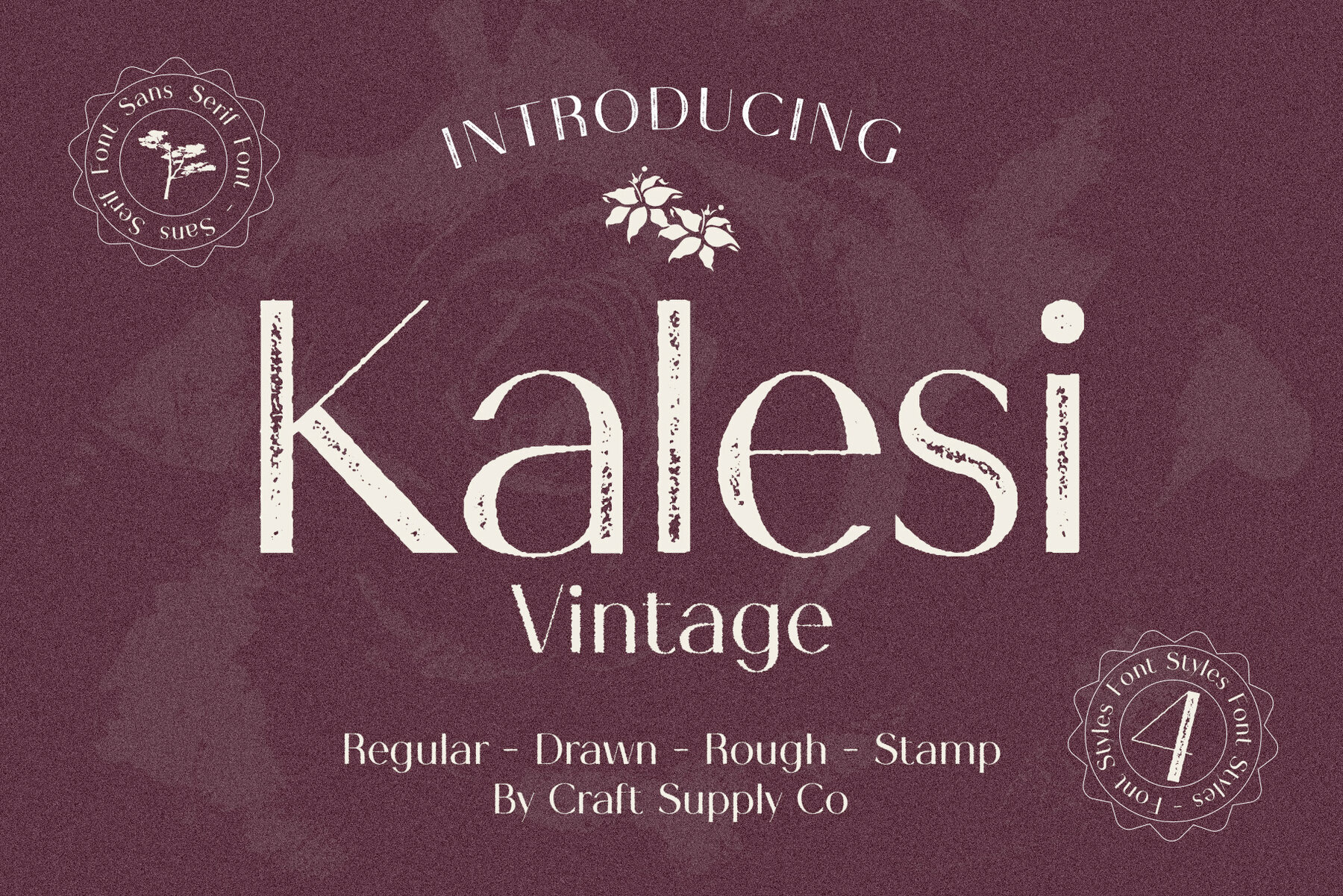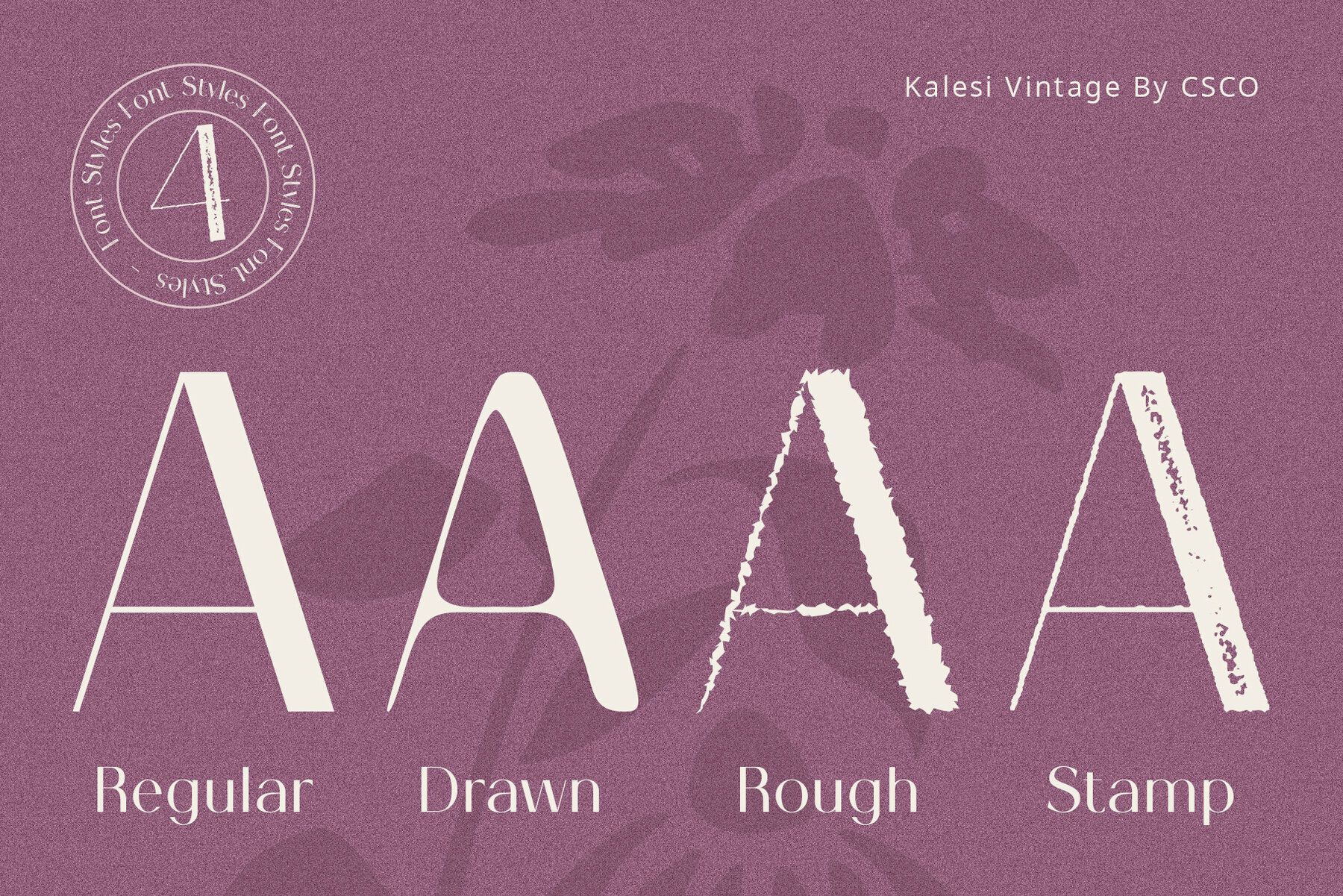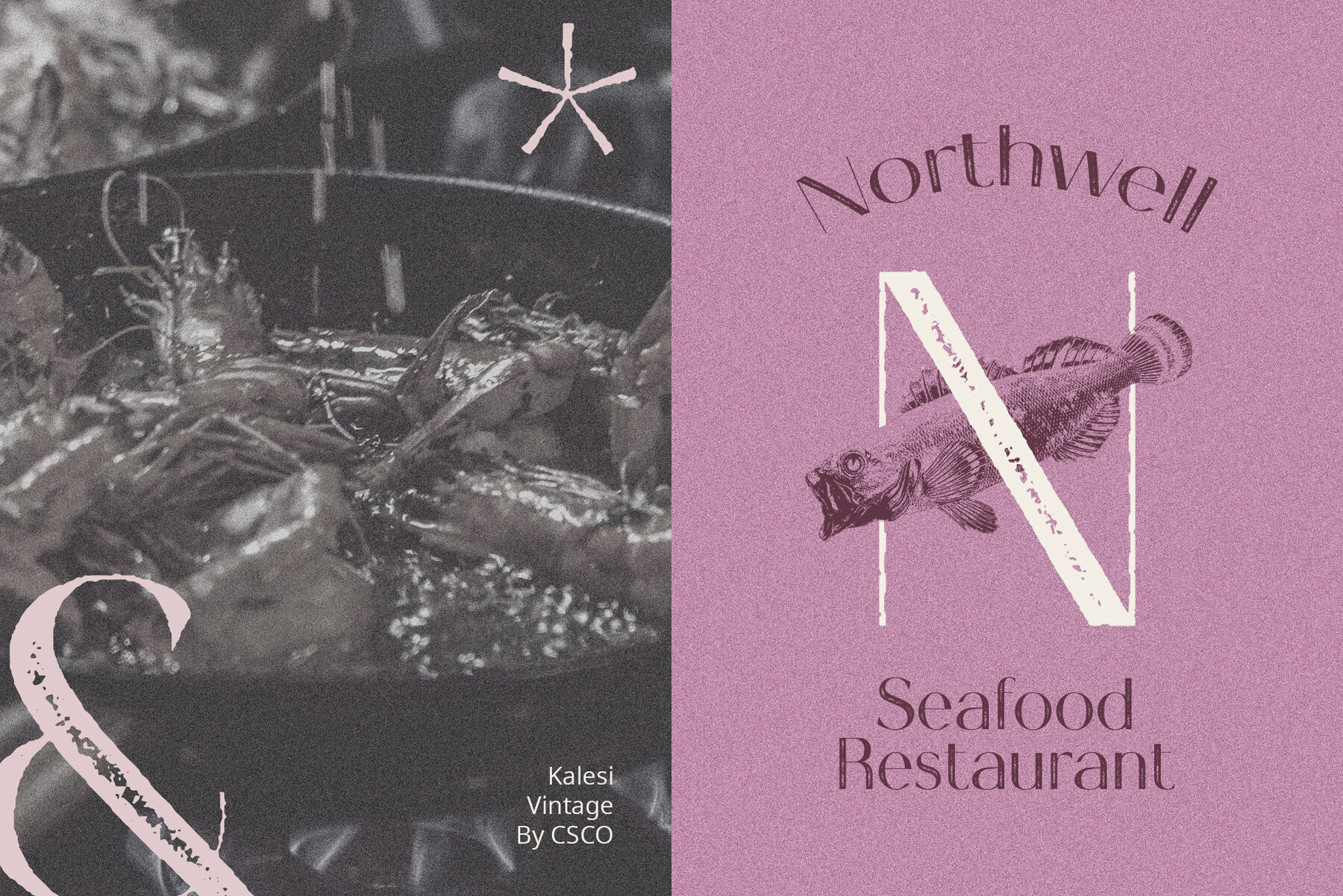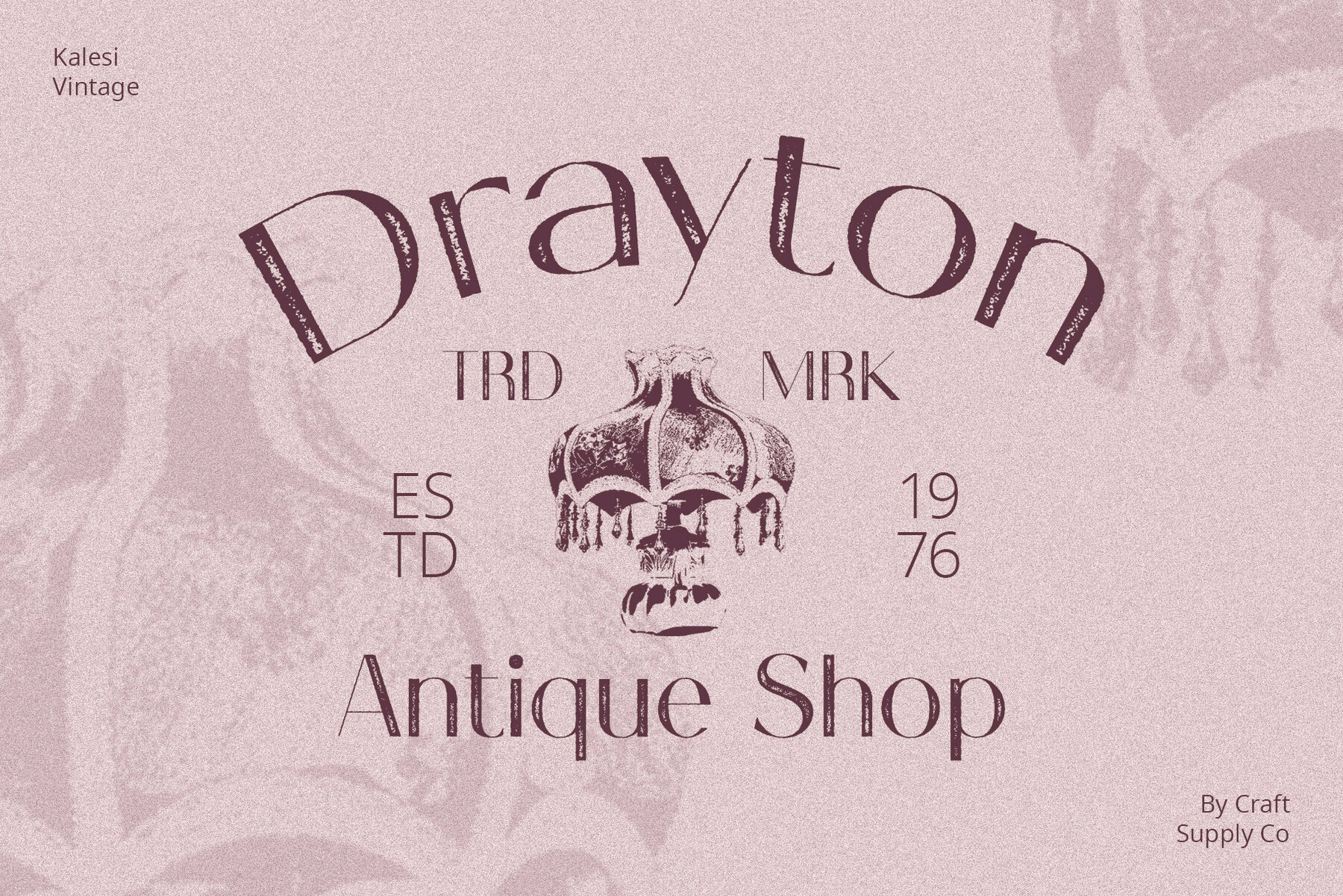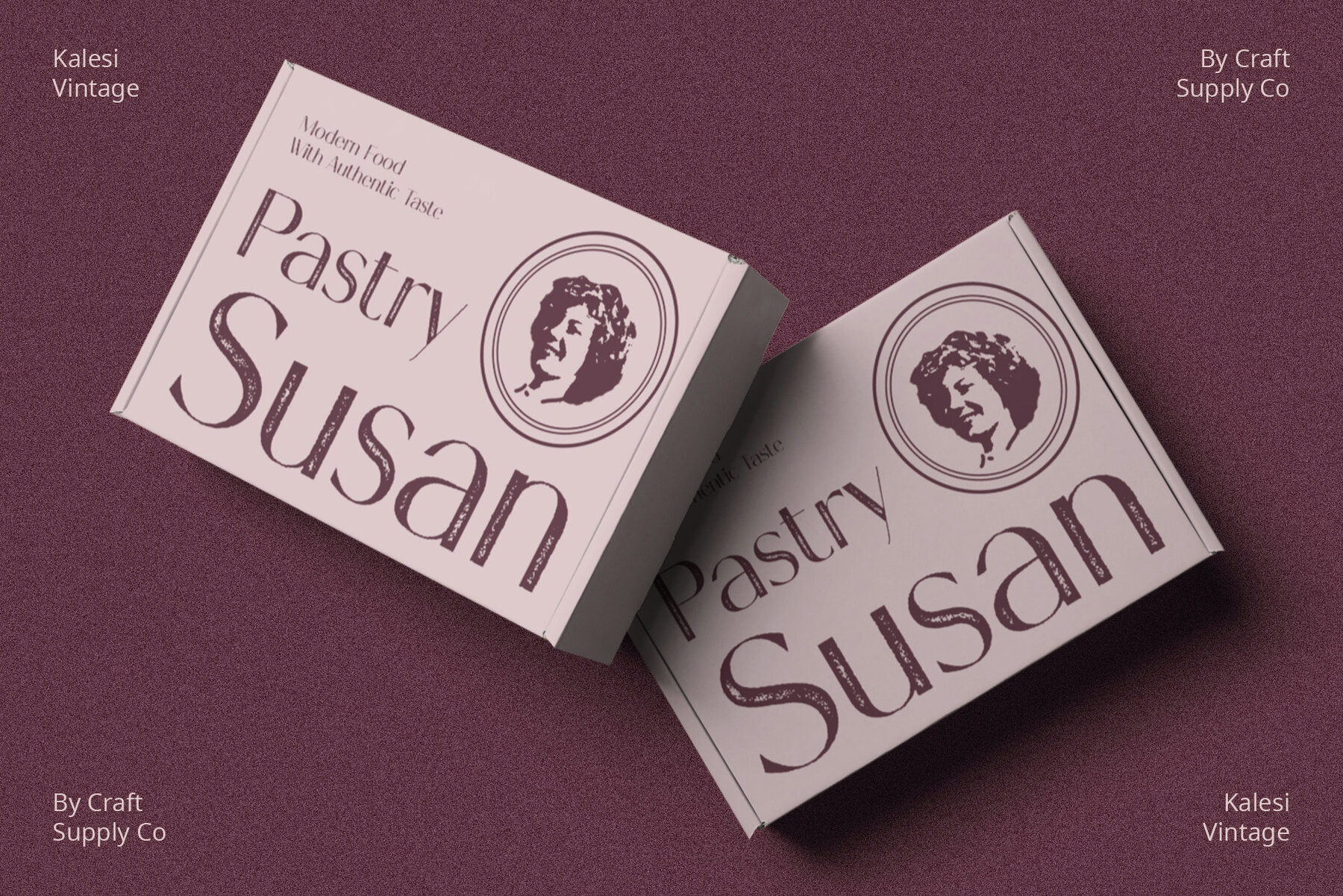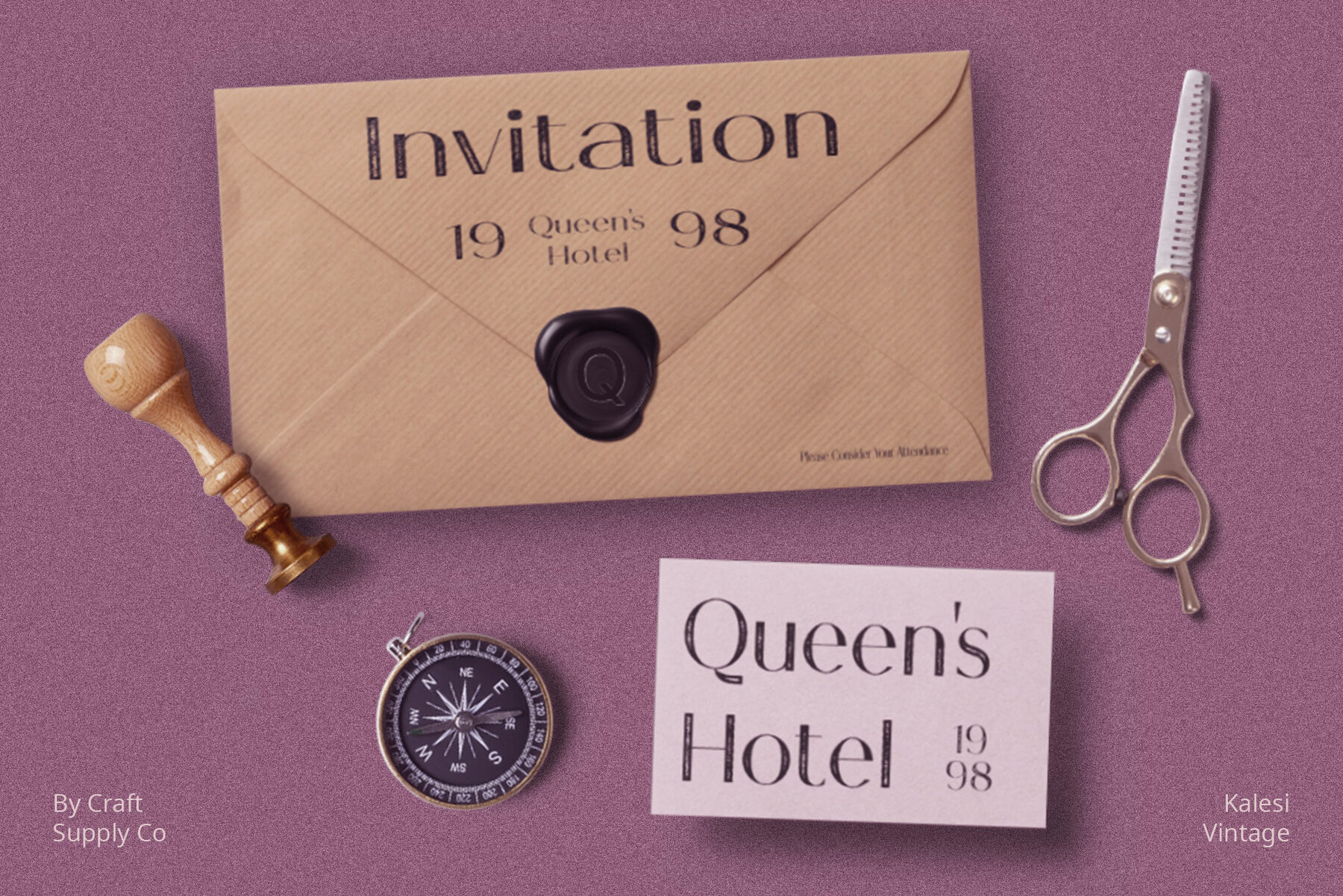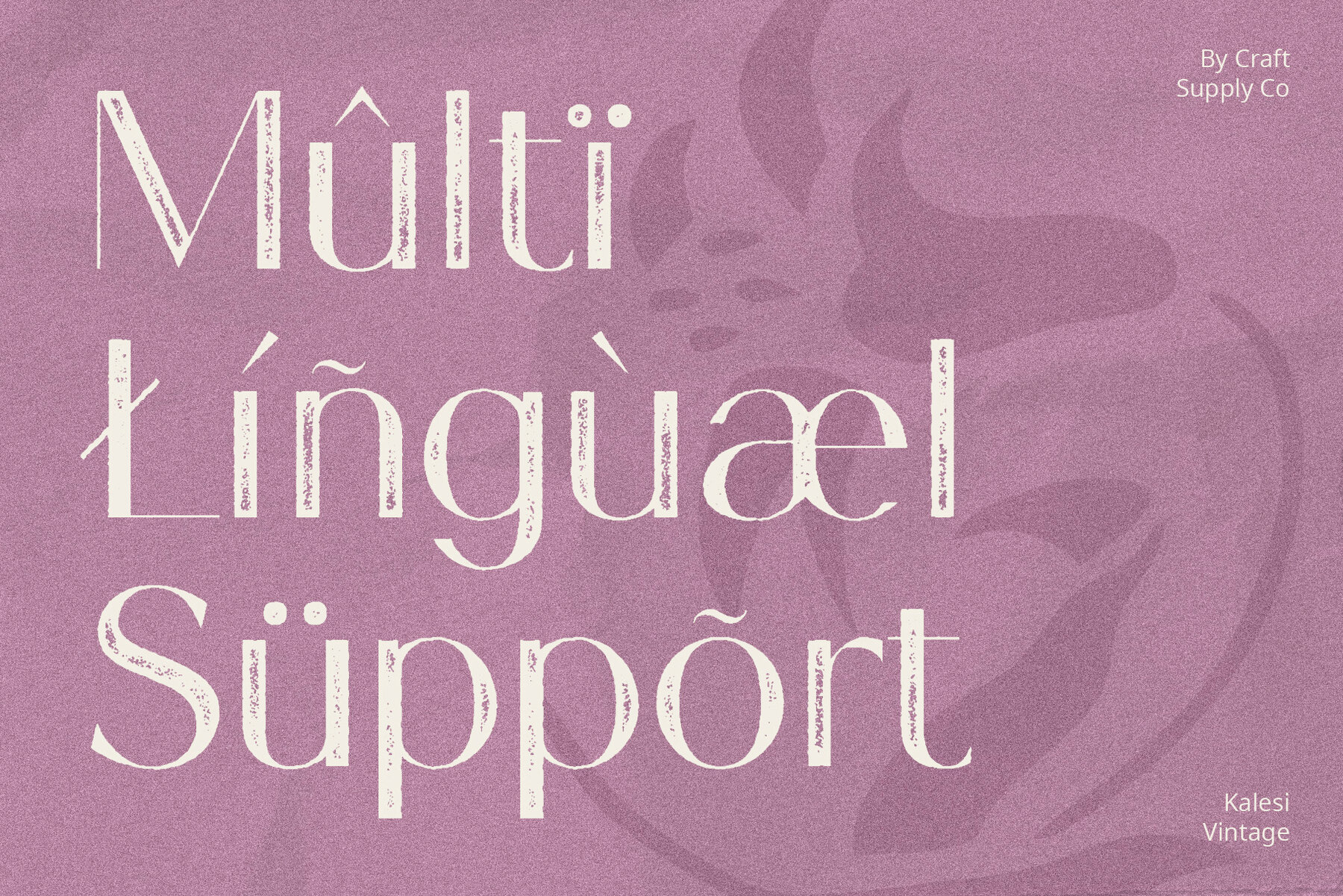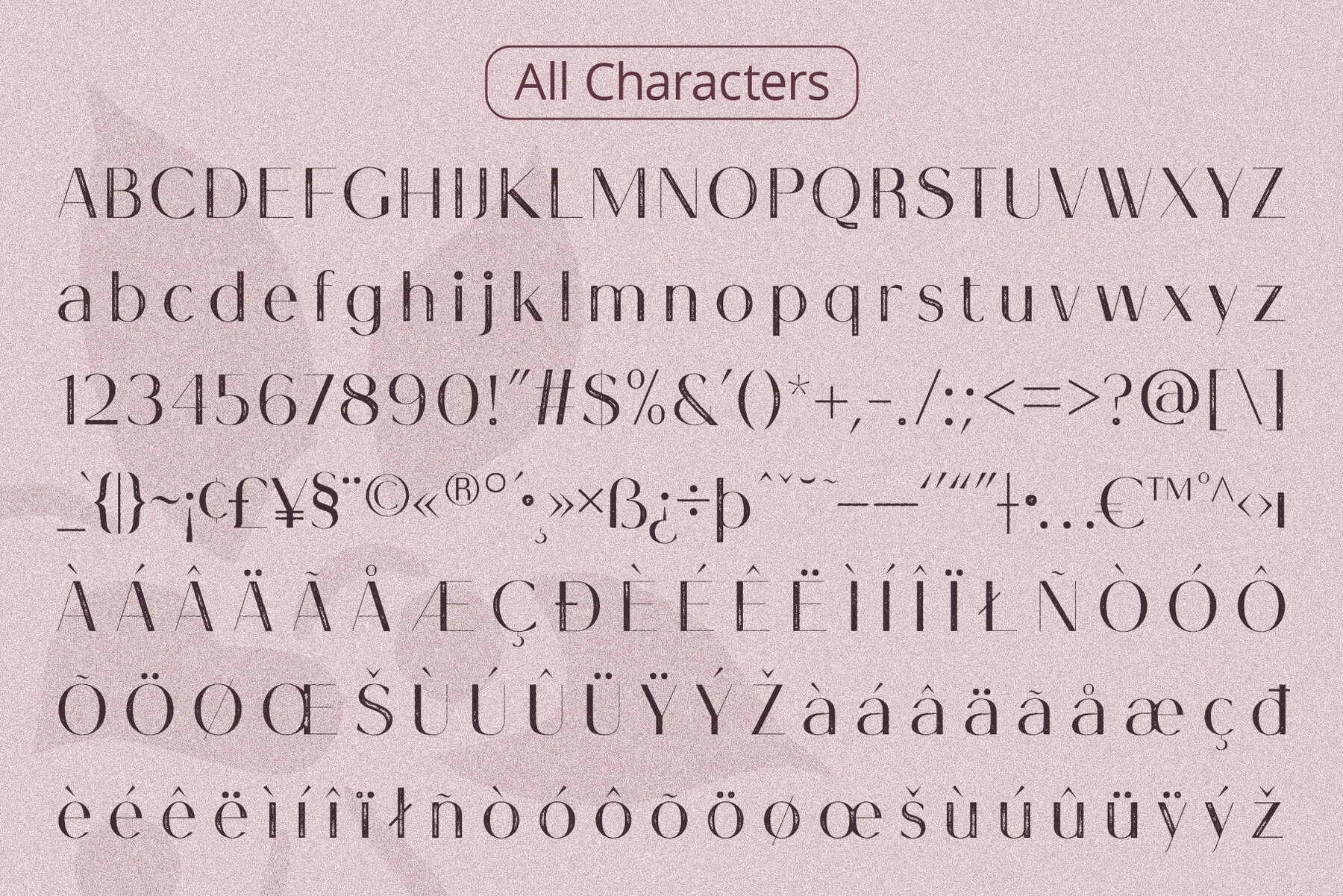
Kalesi Vintage Font
Experience the charm of Kalesi Vintage, a sans serif font with a rustic allure created through distinctive stamp and rough effects. Each character exudes an authentic handcrafted vibe, perfect for any display. Blending vintage aesthetics with modern design, Kalesi Vintage achieves timeless elegance. The stamp and rough effects add character, ensuring a unique and captivating presence. Designed for diverse displays, Kalesi Vintage excels in various contexts, from logos to headlines. The stamp and rough elements enhance versatility, making your content stand out effortlessly. Beyond mere communication, Kalesi Vintage delivers expressive impact. Subtle imperfections in its stamp and rough features create an engaging visual narrative, leaving a lasting impression. In summary, Kalesi Vintage is more than a font; it is a design tool that effortlessly combines rustic appeal with timeless elegance. With its versatile usage and expressive impact, this sans serif font adorned with stamp and rough effects promises to enhance your display projects, infusing them with character and charm. No specialized software is needed to utilize this typeface. For any inquiries or assistance, please don’t hesitate to get in touch. We appreciate your support in making your creative projects shine! Best regards, Craft Supply Co.Kalesi Vintage: Sans Serif Font with Rustic Stamp and Rough Effects
Timeless Elegance
Versatile Usage
Expressive Impact